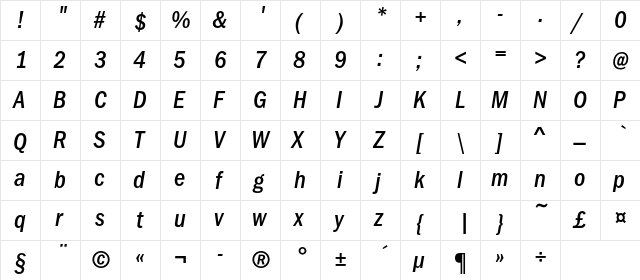
FranklinGothicMediCondC Italic Font Preview
Design Context for FranklinGothicMediCondC Typeface
FranklinGothicMediCondC takes a clean, functional approach — its unadorned letterforms prioritise legibility and work reliably across screen and print environments. Its italic angle brings a sense of urgency and motion to the letterforms. The condensed width makes it efficient for tight spaces without sacrificing legibility.
Font Pairing: Works well alongside a characterful serif or display font that can carry the expressive load while FranklinGothicMediCondC handles the functional copy.
Pro Tip: Use FranklinGothicMediCondC tightly set in headlines and banners — its condensed proportions make it ideal for maximum impact in minimum horizontal space.